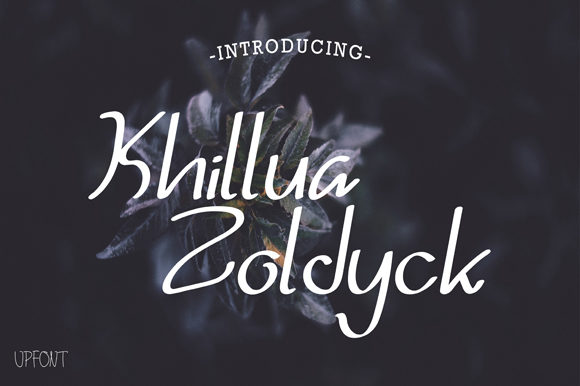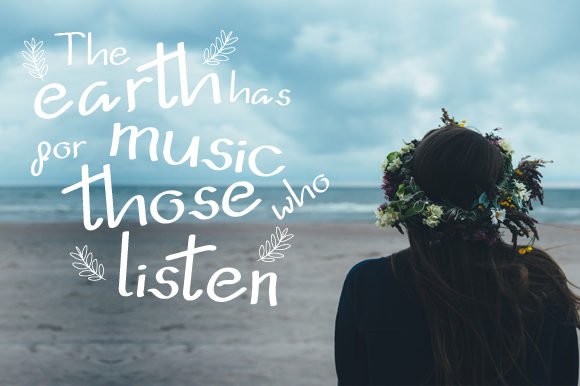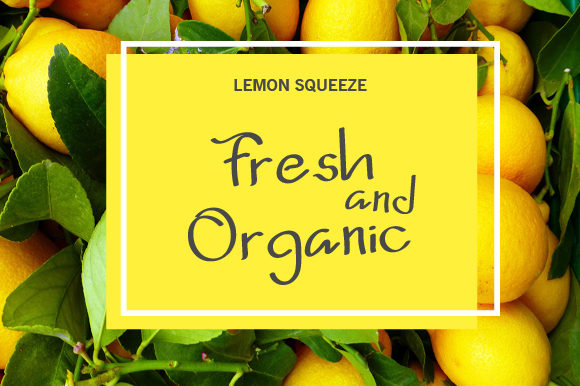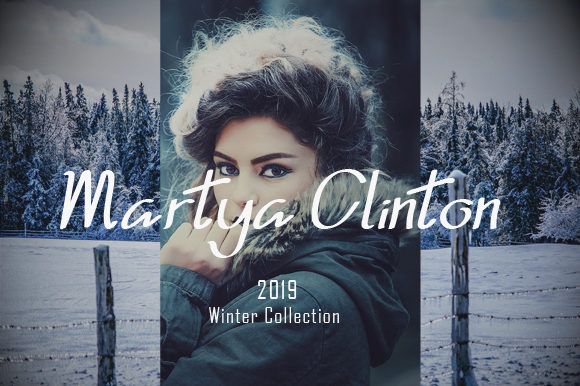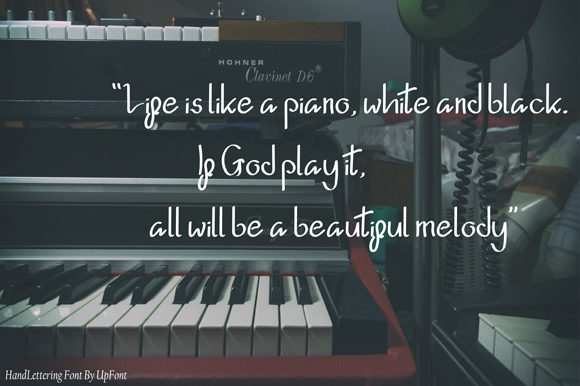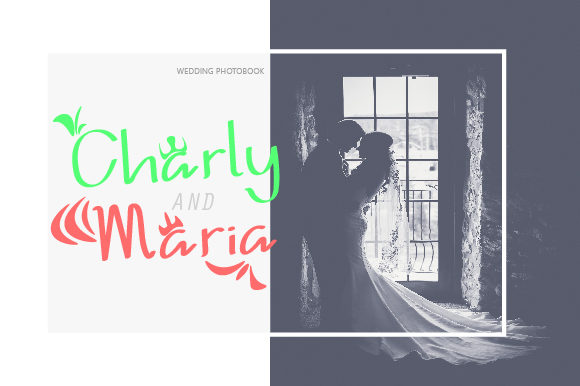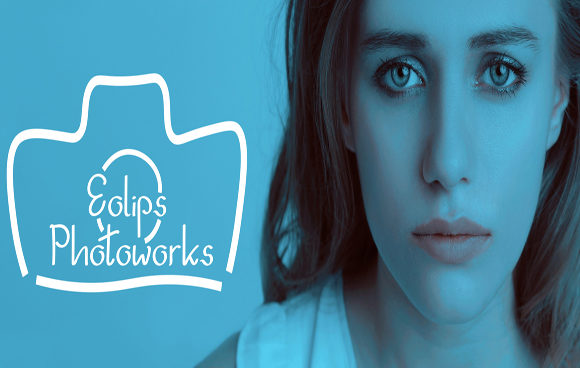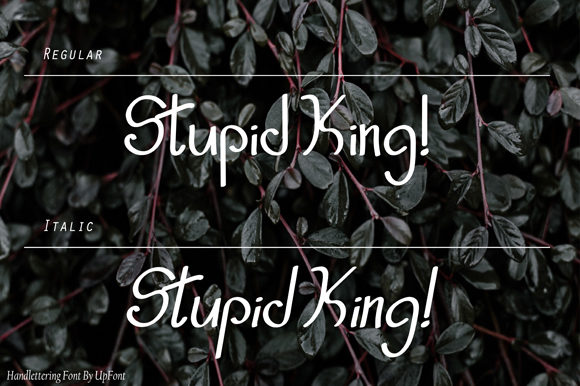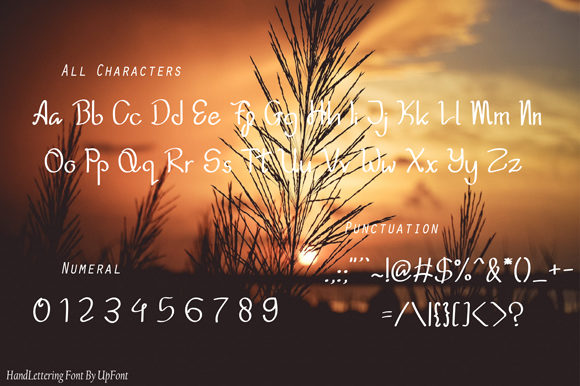
Khillua Zoldyck Font
About Khillua Zoldyck Font
Khillua Zoldyck is a hand-lettered condensed sans serif font with a unique brush style. It’s a distinctly dramatic font that will turn heads!